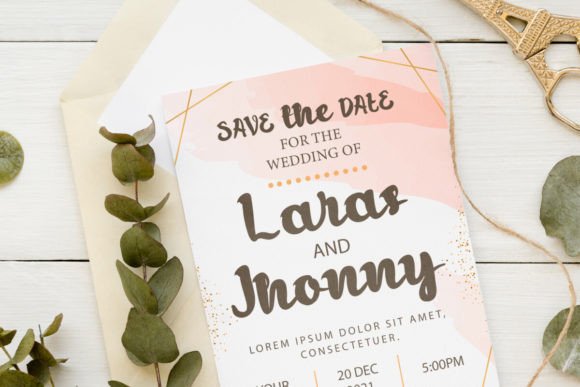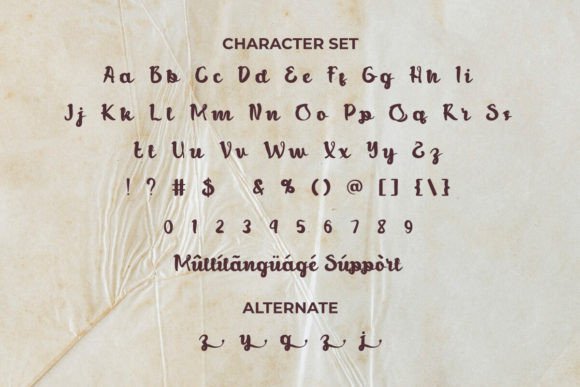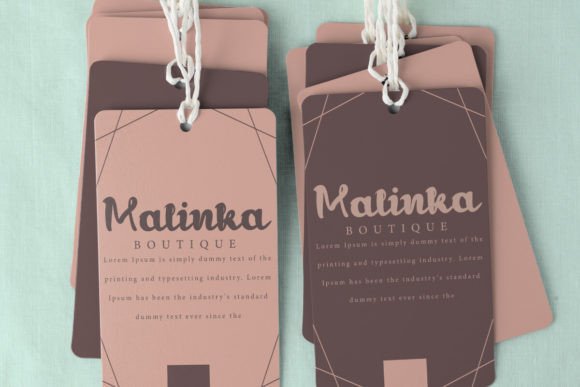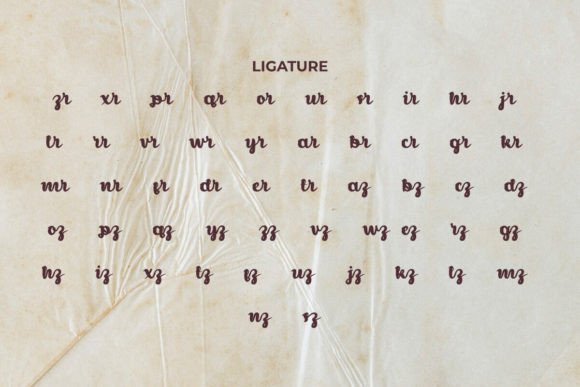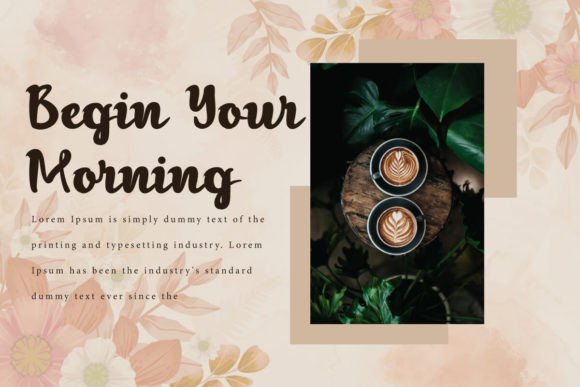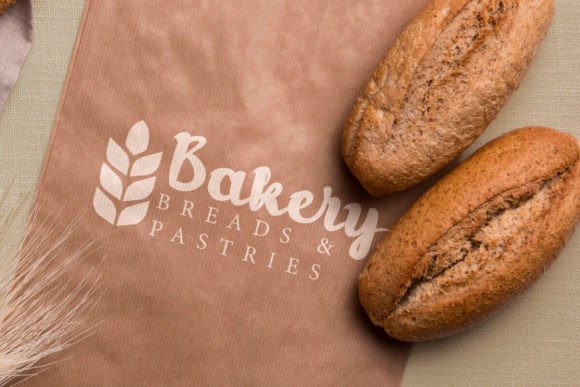
Introduction to Self Knowledge Font Font
Fonts play a crucial role in design, and the Self Knowledge Font font is a typeface that brings both character and versatility to any project. Whether you’re working on a branding project, a website, or a print design, the Self Knowledge Font font offers a unique style that can elevate your work.
Self Knowledge Font is a thick handwritten script font with a beautiful touch.
Besides having a thicker brush, this font also has unique letters i e.
Why Choose Self Knowledge Font Font?
The Self Knowledge Font font is more than just a typeface – it’s a design tool that helps you communicate your message with style and clarity. Its unique character set and versatile design make it suitable for a wide range of applications, from elegant invitations to bold headlines.
With its carefully crafted letterforms and balanced proportions, the Self Knowledge Font font ensures readability and visual appeal across all mediums.
What makes Self Knowledge Font font special?
The Self Knowledge Font font stands out with its unique design, exceptional readability, and versatility across various design applications.